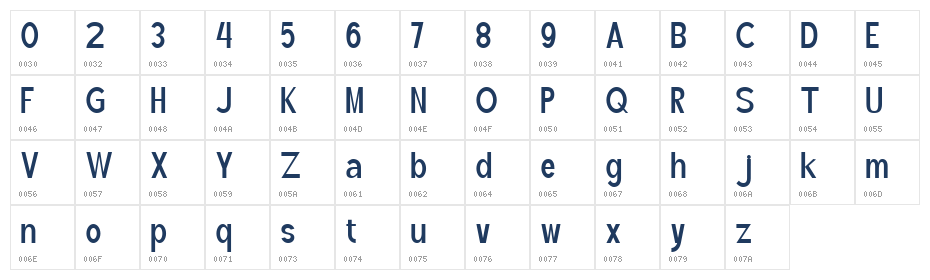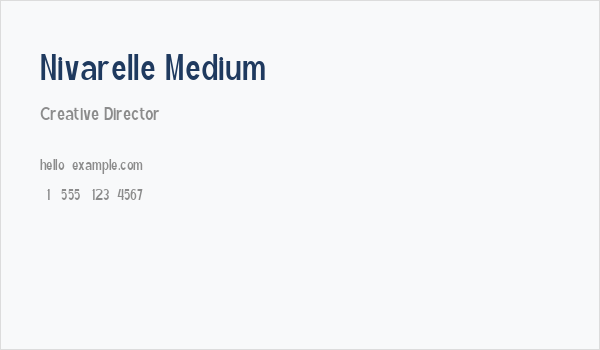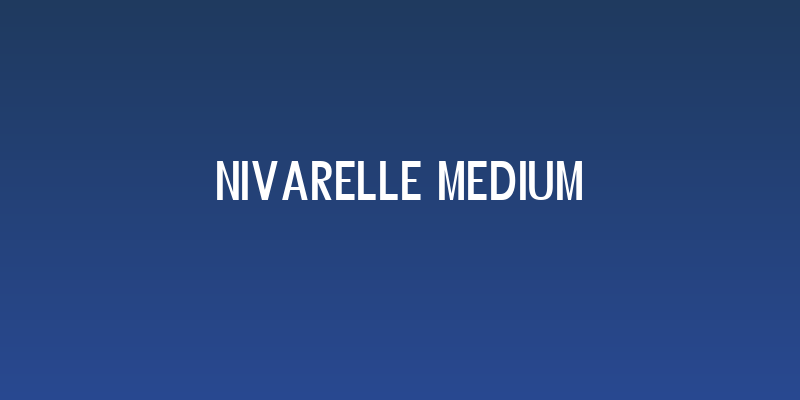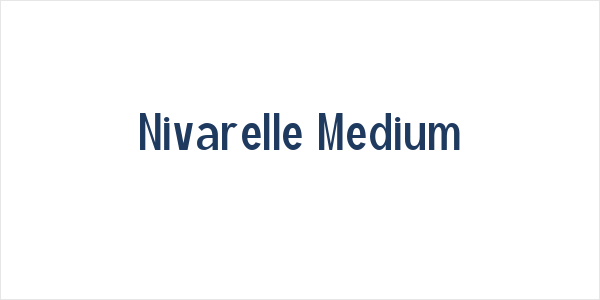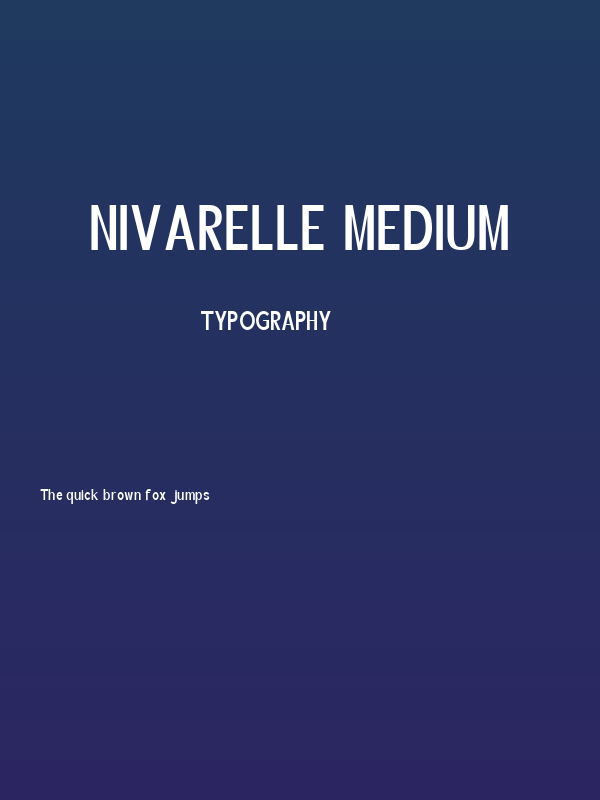
Nivarelle Medium Font
Nivarelle Medium Description
A modern, sans-serif typeface with clean, geometric letterforms and consistent stroke widths.
| Overall Style | Modern, Geometric |